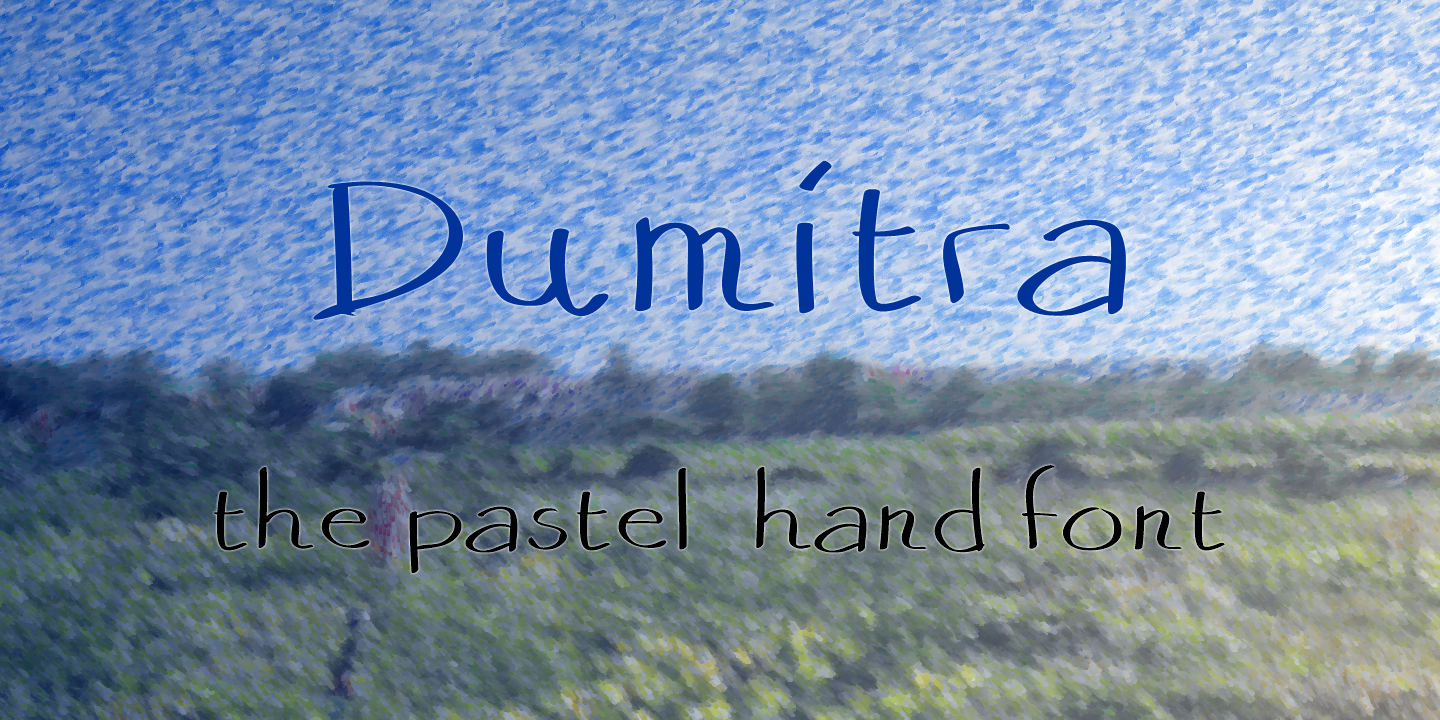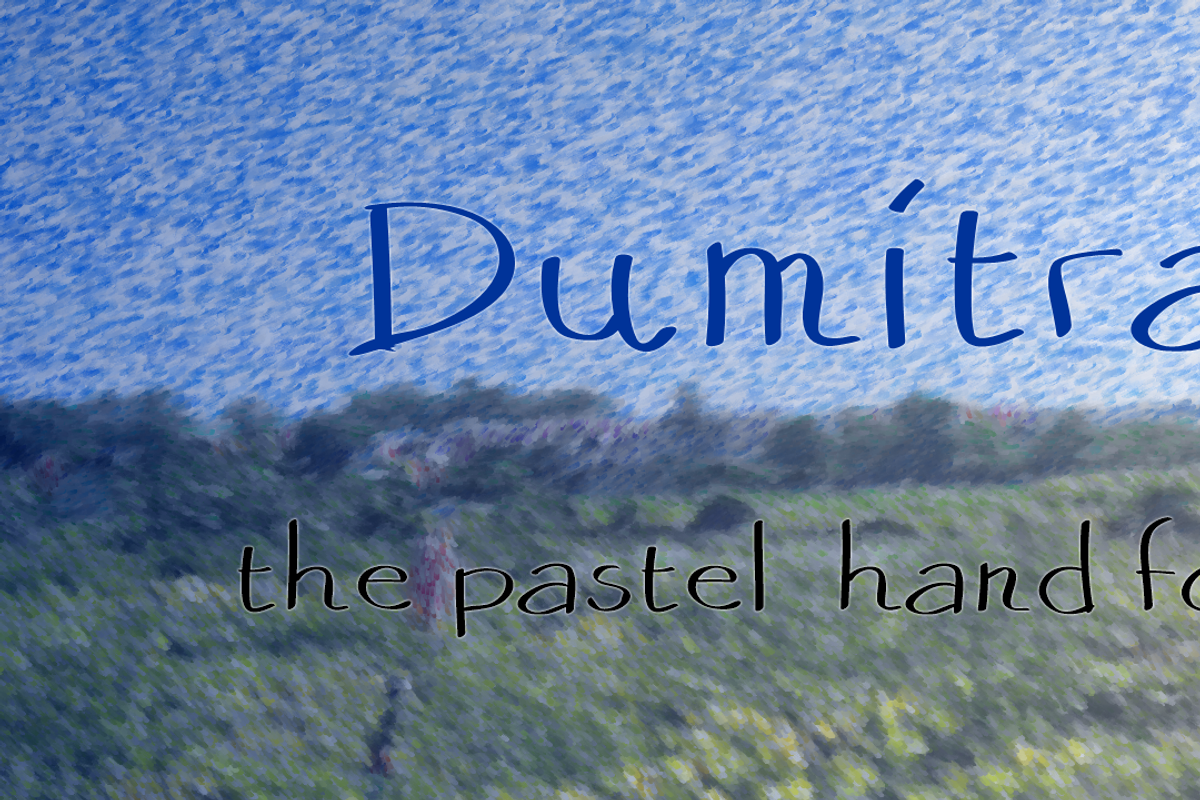
Dumitra, the pastel hand font
Dumitra is another fantastic hand written font created by Andrei Olaru and published by Kreativ Font. Inspired by impressionistic paint and art signatures, Dumitra can help you bring that random and human touch to any of your messages.
Glyphs: Over 200 - Basic Latin, Diacritics, Alternates, Currency